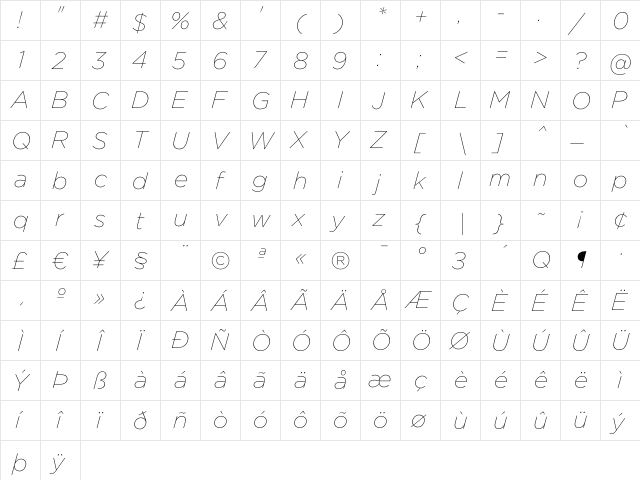
Gotham Italic
Design Context for Gotham Typeface
Gotham is a composed and adaptable typeface that performs quietly and consistently across a wide range of design contexts. Its italic angle brings a sense of urgency and motion to the letterforms.
Pro Tip: Try Gotham for annotation and caption copy alongside an upright companion — the contrast in angle creates a dynamic but ordered typographic system.